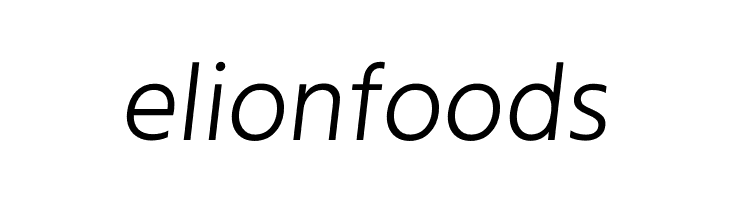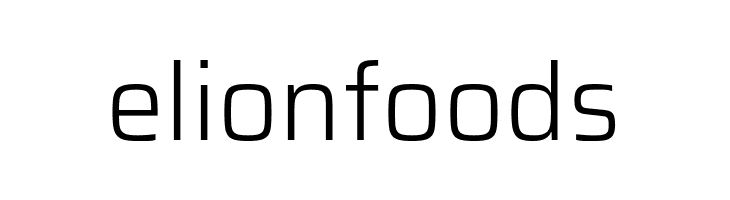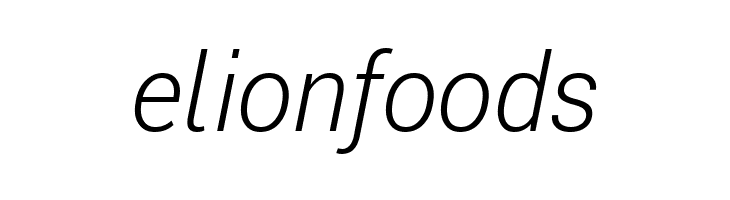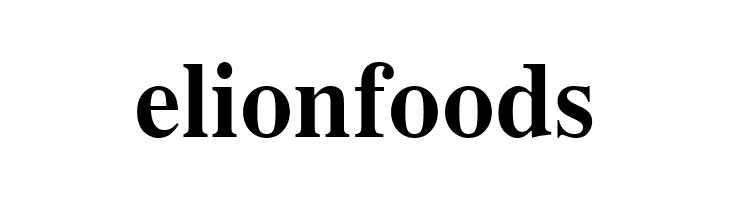
A modern, light, italic sans-serif font with smooth curves and balanced spacing.
A modern, medium-weight, italic sans-serif font with elegant slant and balanced spacing.
A bold, italicized modern sans-serif font with sleek, dynamic characters.
A sleek, modern extra light italic font with elegant slanted characters.
A sleek, modern, light italic sans-serif font with medium contrast.
A modern, light sans-serif font with clean lines and excellent readability.
A sleek, modern sans-serif font with a light, italic style.
A bold, classic serif font with high contrast and strong presence.
A sleek, modern, light italic font with smooth curves and balanced spacing.
A bold serif typeface with classic, authoritative features.